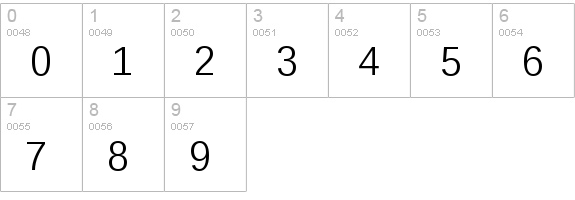
Kalinga Font Details
Introducing Kalinga, a stunningly elegant font that effortlessly combines modernity with timeless beauty. With its sleek and sophisticated lines, Kalinga is perfect for any design project that requires a touch of sophistication and refinement. Whether you are creating a logo, designing a website, or crafting an eye-catching poster, this font will elevate your work to new heights. But what sets Kalinga apart from other fonts is not just its impeccable style, but also its accessibility. Kalinga is completely free to use, making it the perfect choice for designers on a budget or those who simply enjoy the pleasure of creating without limitations. You can easily download Kalinga at FontsMarket.com, a trusted and reputable source for high-quality fonts. With just a few clicks, this font can be yours, ready to enhance your creative endeavors. So why wait? Discover the beauty of Kalinga and unlock the potential of your designs today.